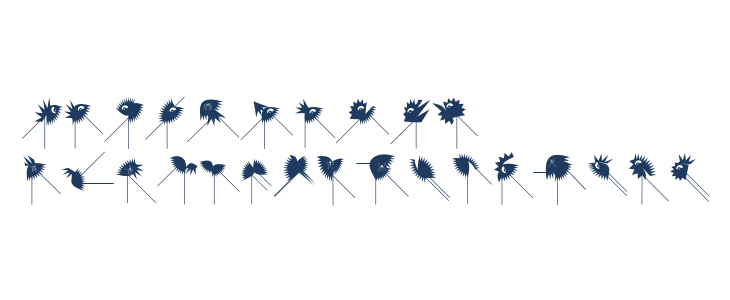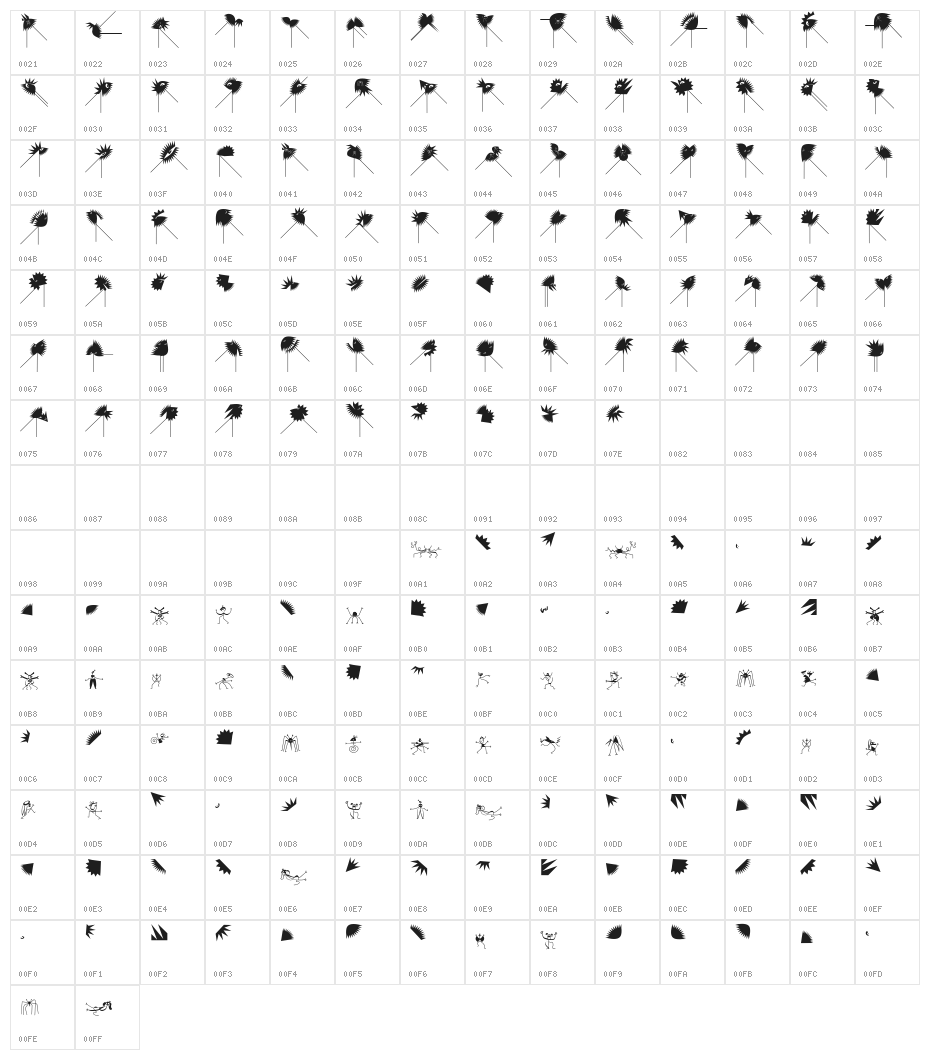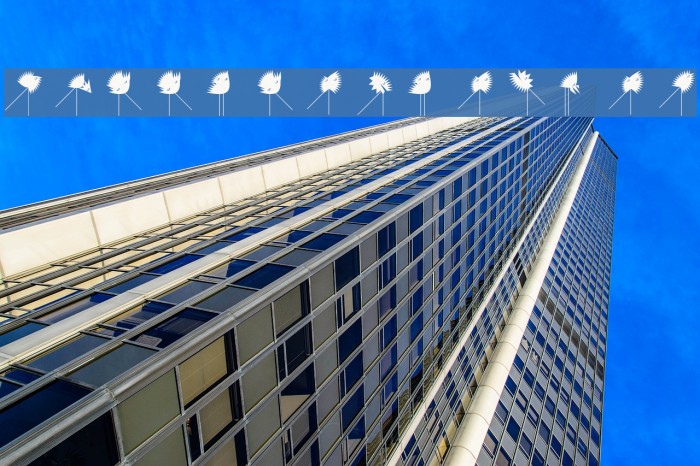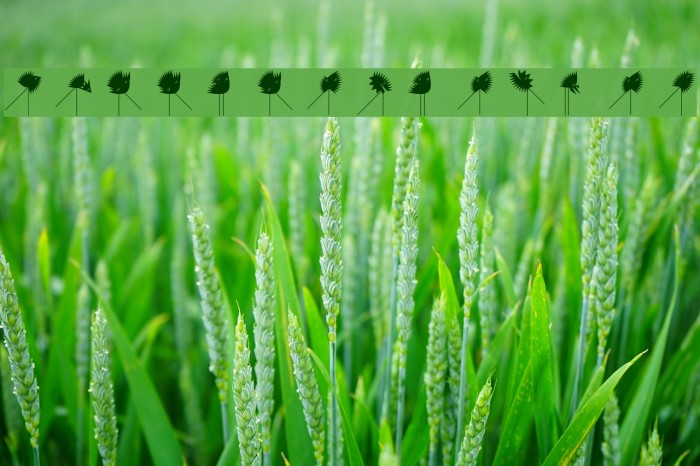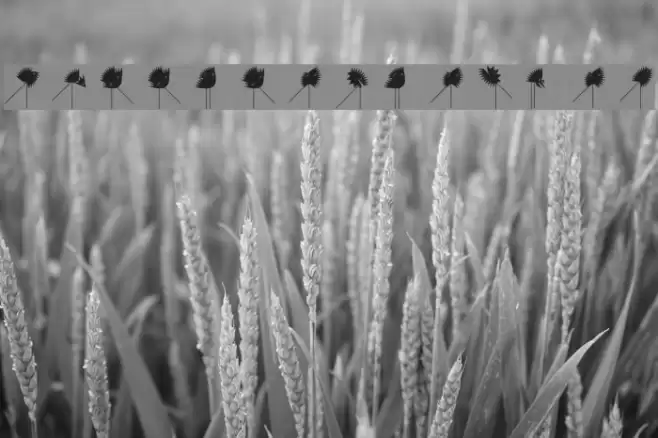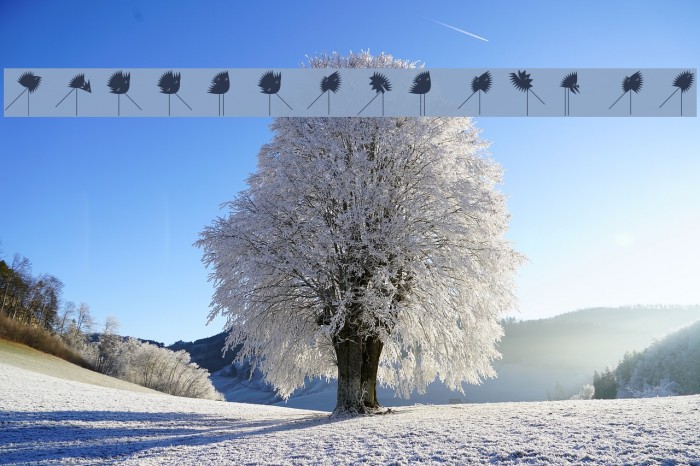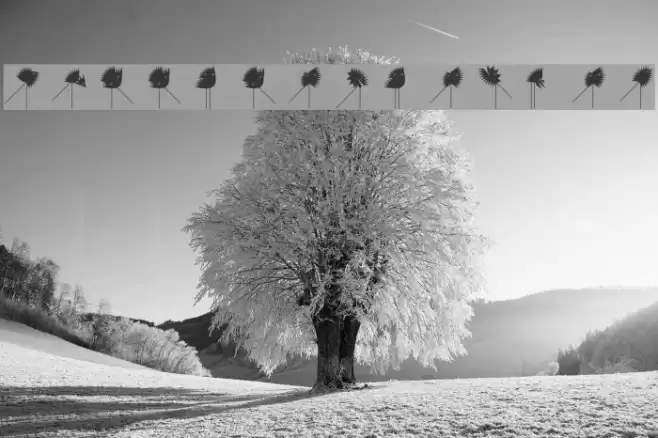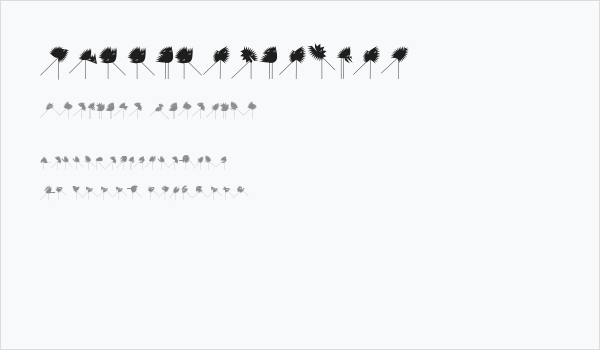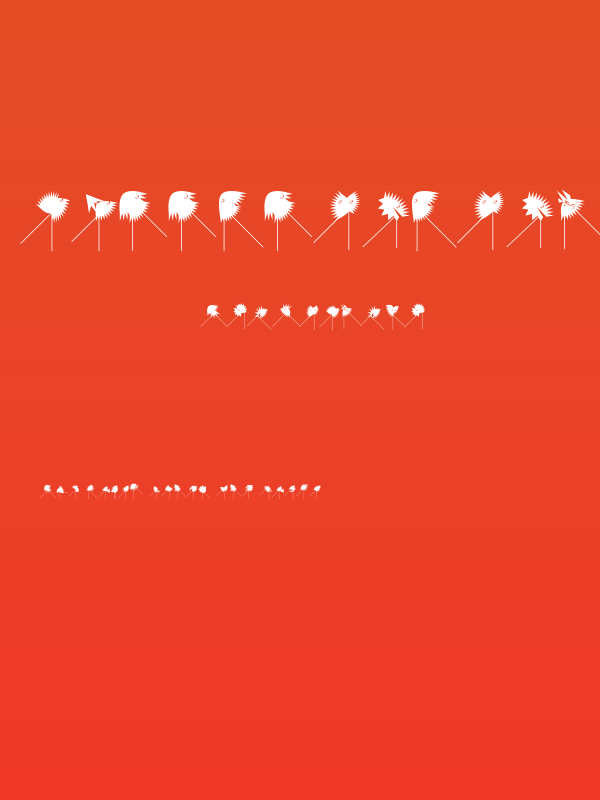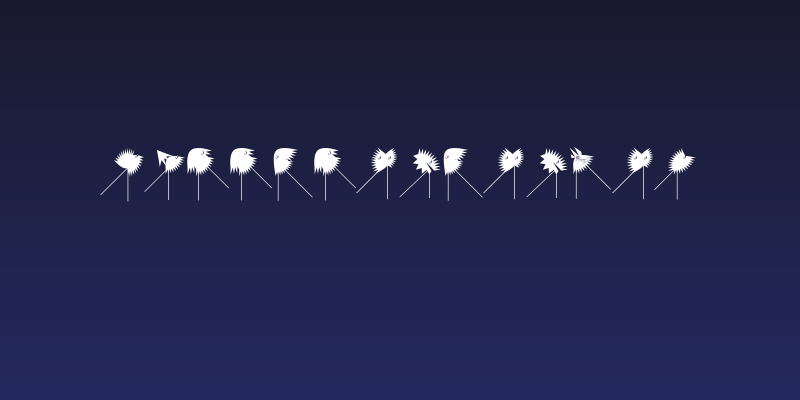
RunningZigzags Font
This design features a highly abstract and decorative style, characterized by sharp, jagged edges and dynamic, angular forms. Each character is uniquely crafted with a spiky, energetic appearance, resembling bursts or explosions. The overall impression is one of movement and intensity, with each letter and symbol appearing to leap off the page. The intricate detailing and bold shapes make it a standout choice for projects that require a strong visual impact. The design is not suited for readability in body text but excels in artistic and expressive contexts.
| Use Case | Logos, Posters, Artistic Displays |
| Proposed Projects | Ideal for album covers, posters, and artistic projects where a bold, expressive style is desired. |